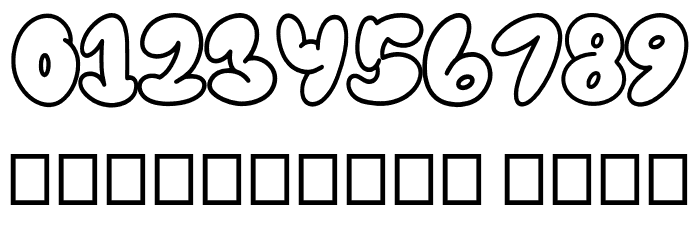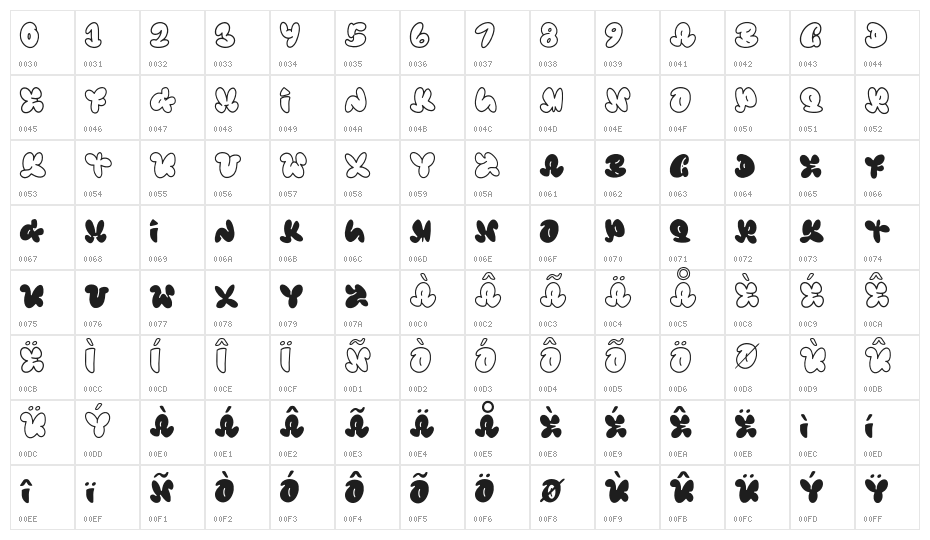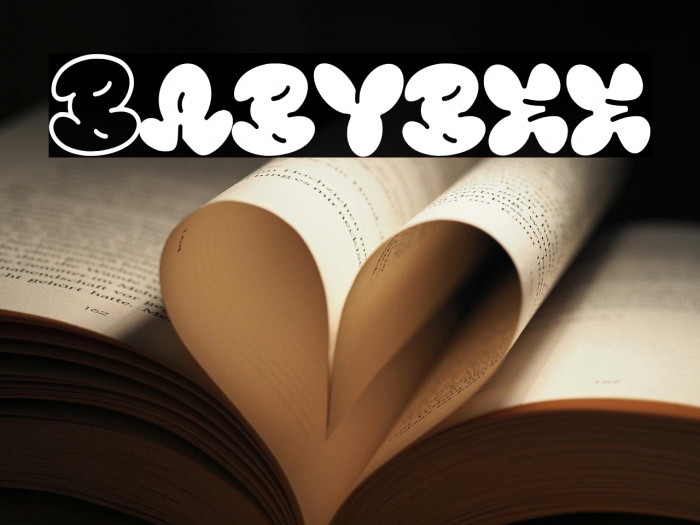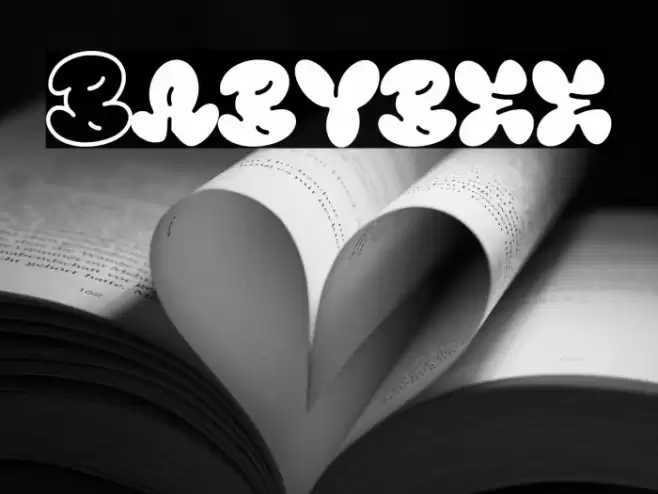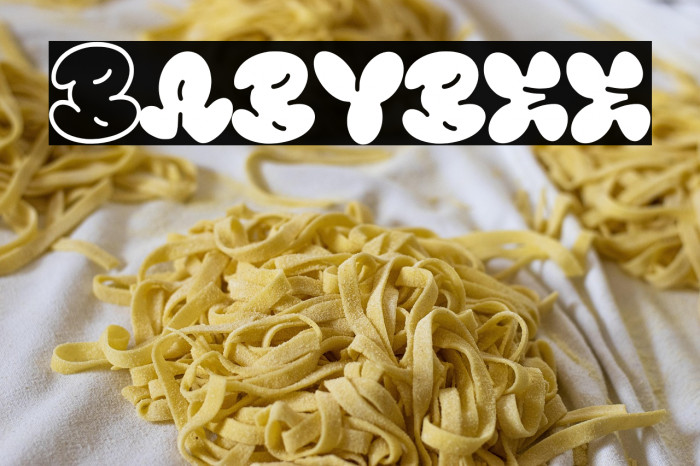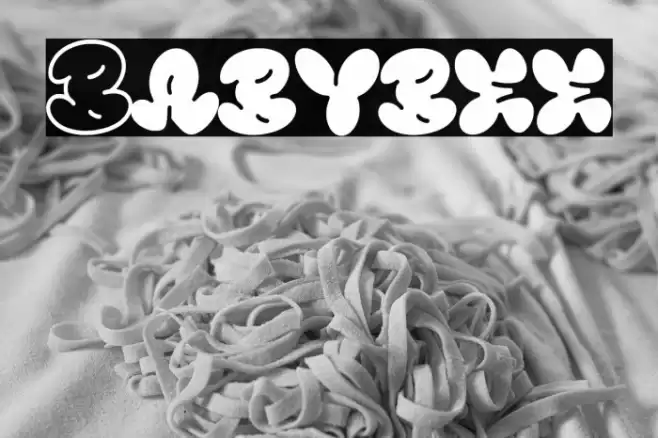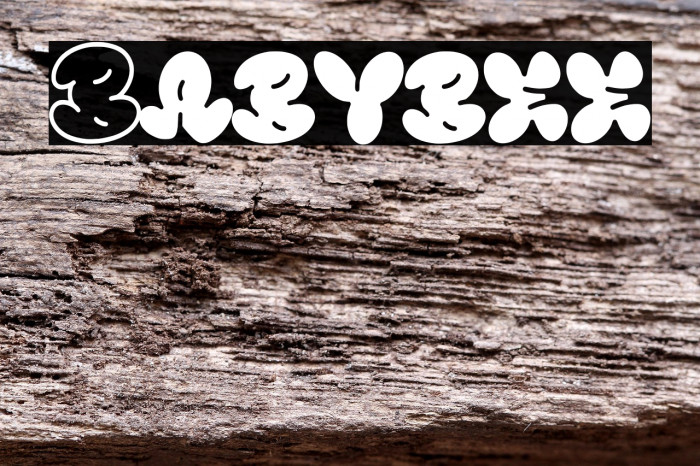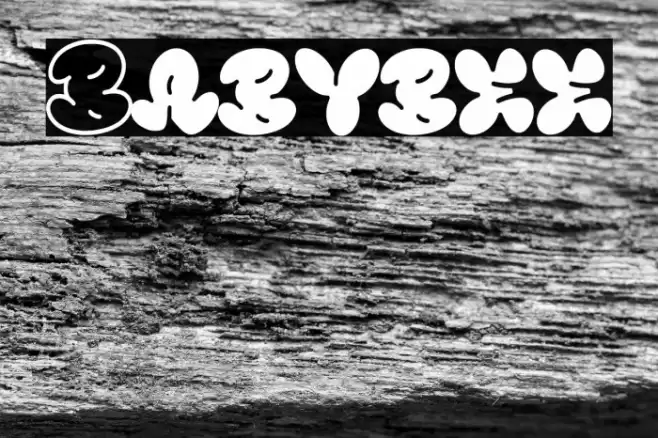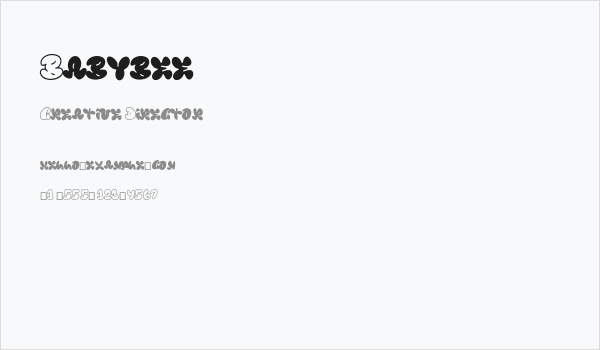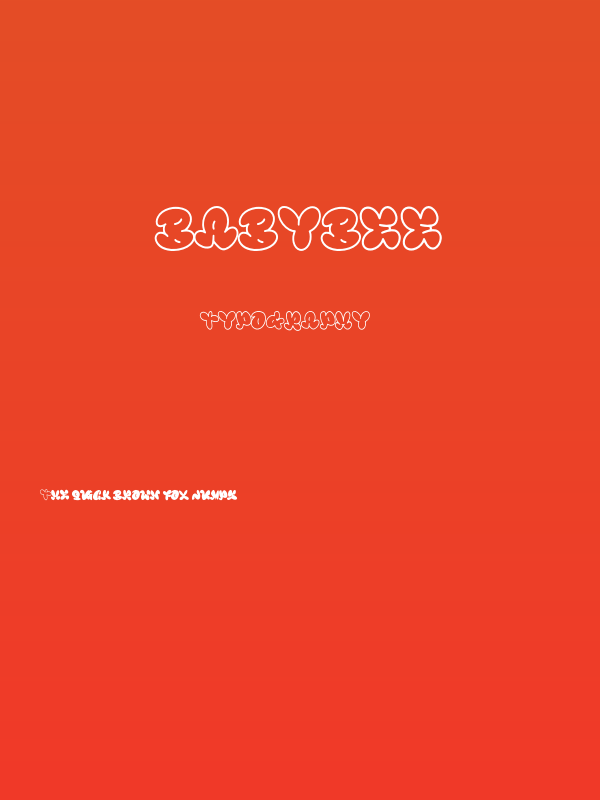
Babybee Font
This playful and bold font features a bubble-like, rounded style that exudes a sense of fun and whimsy. The characters are thick and have a uniform stroke width, creating a cohesive and eye-catching appearance. The uppercase and lowercase letters maintain a consistent design, with exaggerated curves and a slightly inflated look. The numbers and special characters follow the same playful theme, making the font suitable for creative and informal applications. Its unique style makes it stand out, perfect for projects that require a touch of personality and charm.